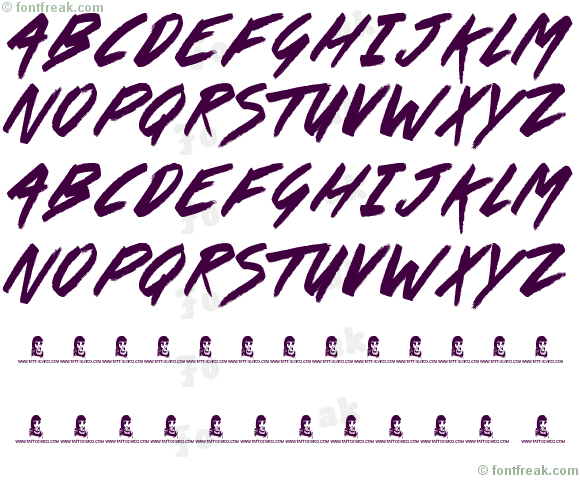
Last Feast
About Last Feast
Last Feast is a striking display font designed by Jonathan S. Harris, characterized by its bold, handcrafted aesthetic. This font falls under the category of script, showcasing dynamic brush strokes that give it an organic, expressive feel. The stroke weight varies significantly, creating a sense of movement and energy, while the high contrast between thick and thin lines adds visual interest. The letters are spaced in a way that maintains legibility while allowing the design to breathe, making it perfect for various creative applications.
One of the standout features of the Last Feast font is its versatility in design. It shines in use cases like wedding invitations, where its artistic flair can set an elegant tone. Additionally, it is well-suited for movie posters, lending a dramatic and eye-catching quality that can captivate an audience. Restaurant menus also benefit from this font's unique character, as it adds a personal touch that can evoke a warm, inviting atmosphere. Furthermore, content creators can utilize Last Feast in social media graphics to grab attention and enhance visual storytelling.
What makes Last Feast truly memorable is its ability to blend artistic expression with functionality. Its bold strokes and expressive nature create an impactful visual statement, ensuring that any project utilizing this font will leave a lasting impression. Whether for personal or professional use, Last Feast is a captivating choice for anyone looking to enhance their design portfolio.